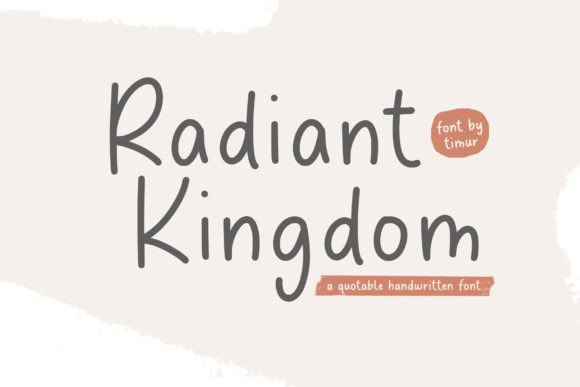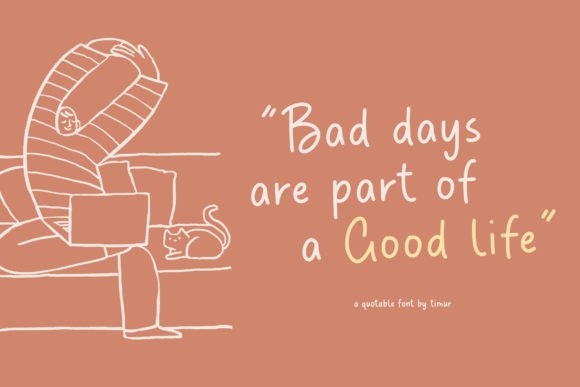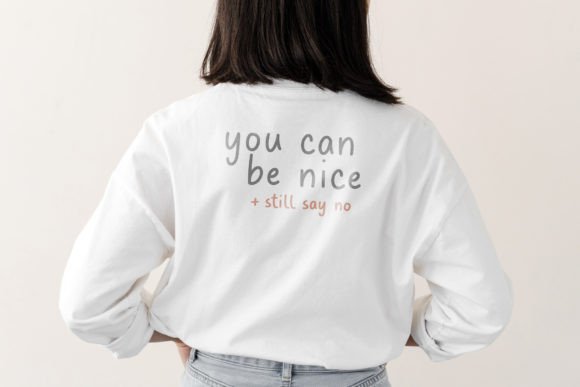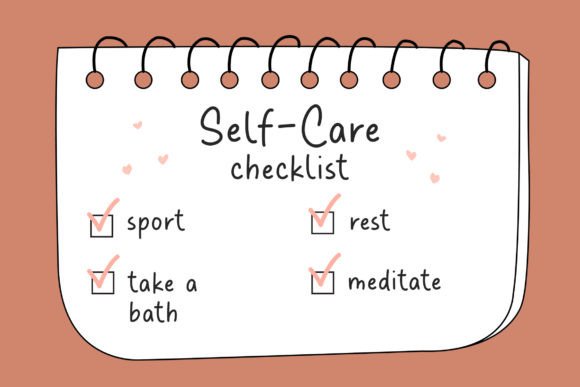
Radiant Kingdom Font
About the Radiant Kingdom Font
Crafted with precision, the Radiant Kingdom Font is ready to bring your ideas to life. Radiant Kingdom is a Quotable Handwritten Font
This font enhances your words with a font that is not just handwritten but also a charming masterpiece. Each stroke weaves a story of intrigue, making each quote a journey through the art of expression. Quotable and irresistible – let your writing leave an indelible mark.
Radiant Kingdom’s expressive, handwritten style is ideal for headlines, short quotes, and branding applications where a touch of whimsical elegance is desired. It works exceptionally well on invitations, social media graphics, and short-form marketing materials. However, its highly decorative nature makes it unsuitable for body text or UI elements requiring high readability.
This font’s personality is charming and sophisticated, yet approachable. For a balanced pairing, consider a clean sans-serif like Open Sans for body text, or a classic serif such as Garamond for a more traditional feel. A geometric sans-serif like Montserrat could also create a striking contrast.
Pairing it with a simple script font for secondary elements can enhance its inherent elegance, but avoid pairings that compete visually for attention.
Radiant Kingdom Font Usage Examples
Radiant Kingdom Font Example